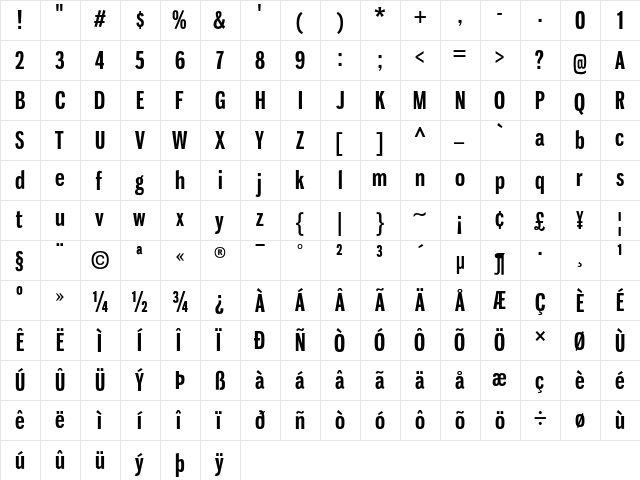
Gnuolane Regular
Design Context for Gnuolane Typeface
Gnuolane takes a measured approach to typography — its balanced proportions and neutral character make it a reliable workhorse for both digital and print work.